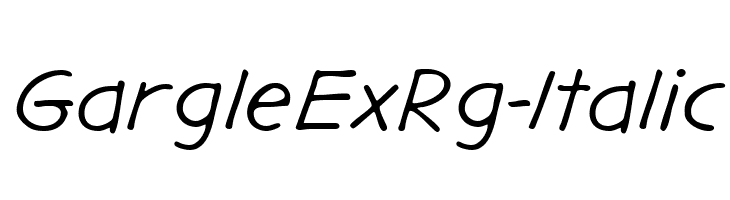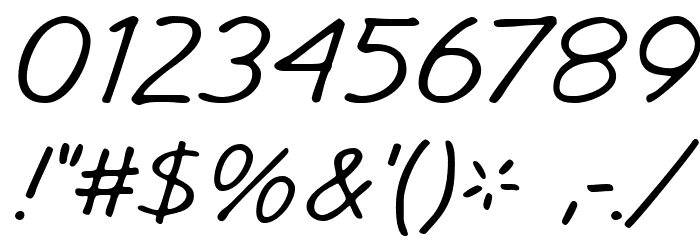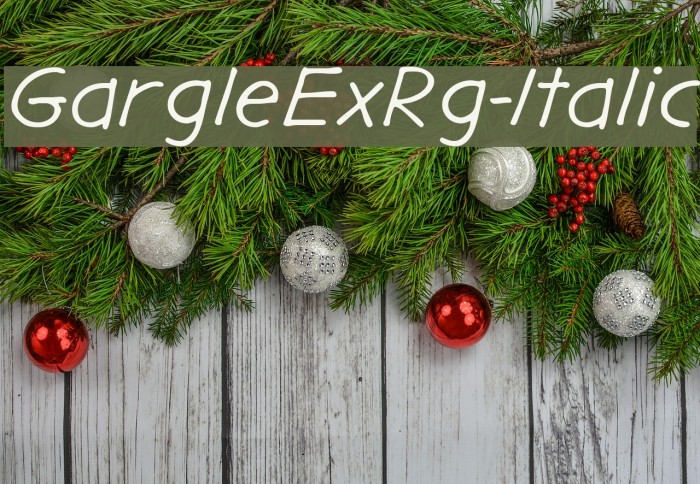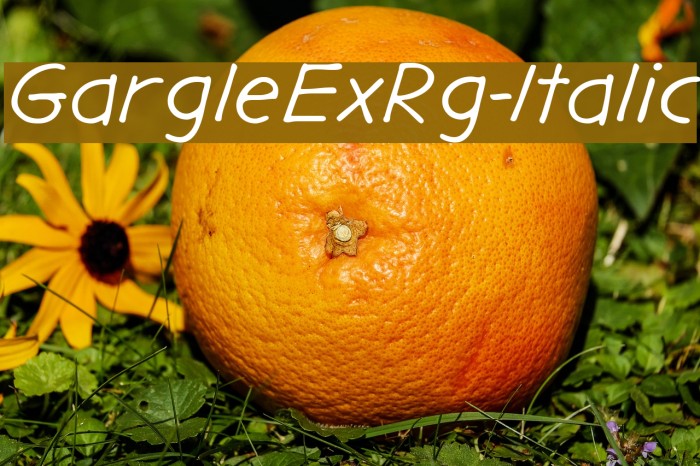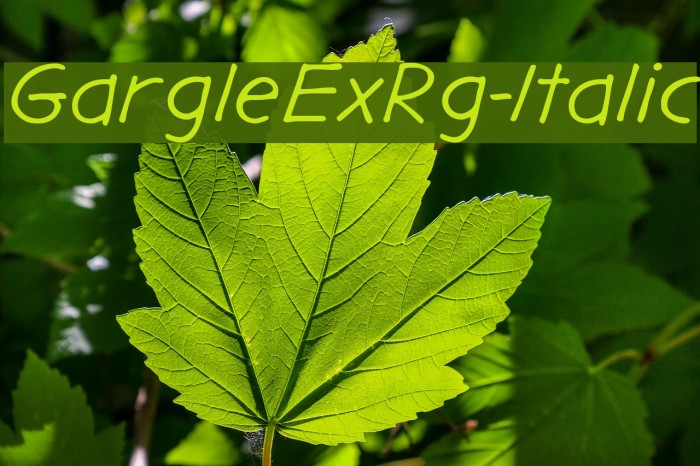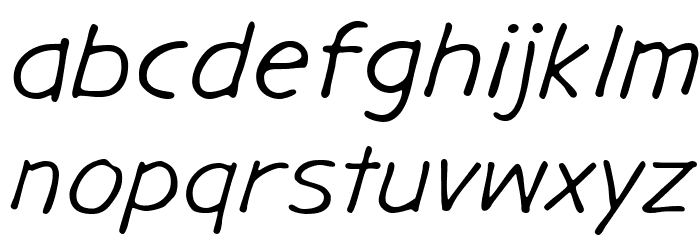
GargleExRg-Italic Font
GargleExRg-Italic Description
This font features a casual, handwritten style with a slight slant, giving it an informal and approachable appearance. The characters are well-rounded and smooth, with consistent stroke widths that maintain readability. The uppercase letters are slightly taller than the lowercase, providing a clear distinction between the two. Numbers and special characters are designed to match the overall style, ensuring a cohesive look. The font's simplicity and clarity make it versatile for various applications.
A casual, handwritten-style font with a slight slant and smooth, consistent strokes from Comic fonts.
- Proposed Projects: Ideal for personal projects, invitations, greeting cards, and informal branding.
- Overall Style: Casual
- Use Case: Headlines, Informal text, Personal projects